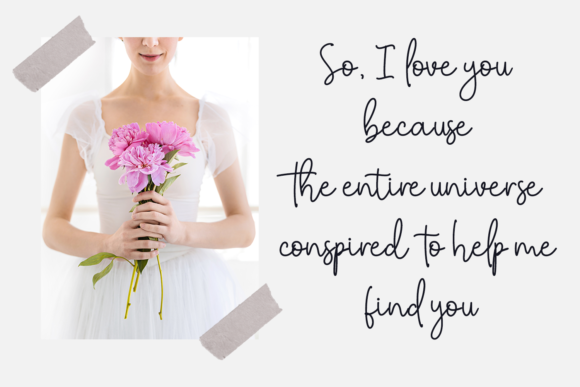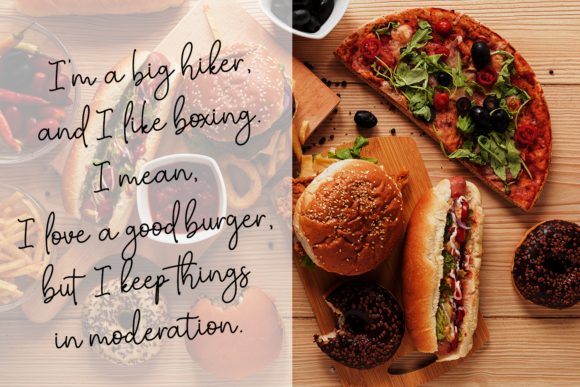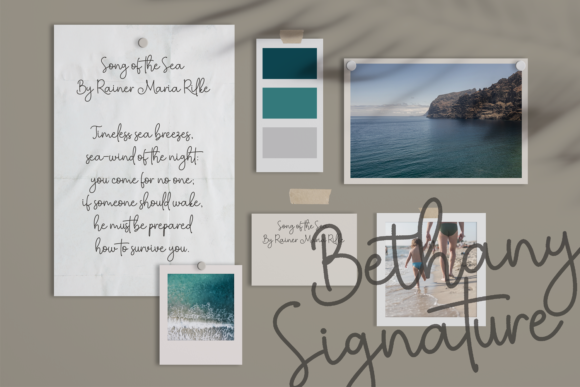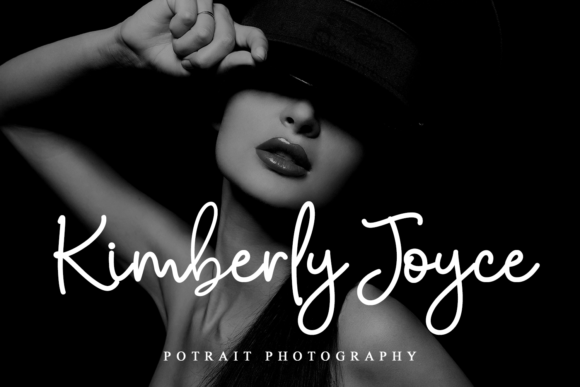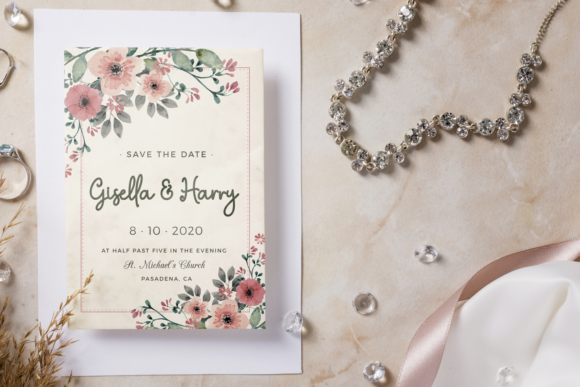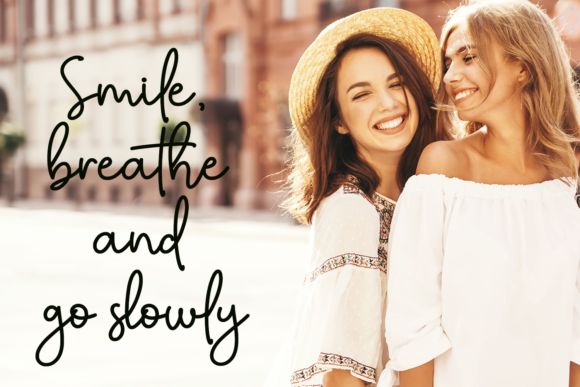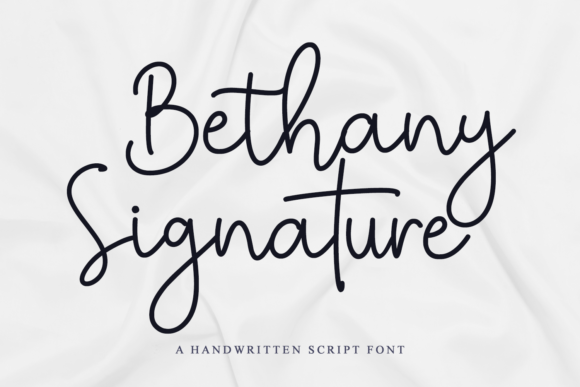
The Magic of Bethany Signature Font: A Designer’s Delight
Have you ever been in the middle of a design project, and suddenly, you’re stuck on finding the perfect font? I recall a particularly frustrating experience when a client requested a custom logo with a very specific, elegant feel. After hours of scouring font libraries, I stumbled upon Bethany Signature Font. It was love at first sight! 💫
Bethany Signature is a delicate, elegant, and flowing handwritten font that has become a staple in my design toolkit. Its beautiful, well-balanced characters make it an incredibly versatile choice, suitable for a wide range of designs. In this article, I’ll share my honest review, a practical guide on how to use it, and some valuable insights into this stunning font.
- 💫 Delicate and elegant handwritten style
- ✅ Well-balanced characters for a polished look
- 🎨 PUA encoded for easy access to glyphs and swashes
- 📈 Features a varying baseline, smooth lines, and stunning alternates
While Bethany Signature Font is an excellent choice, there are a few minor considerations to keep in mind:
- 🤔 May require some time to get accustomed to its unique flow and connections
- ⚠️ Not ideal for very large or very small font sizes, as some details might get lost
Exploring Alternatives: Similar Fonts for Different Moods
If you’re looking for something similar or want to experiment with different styles, consider these alternatives:
- Kaitlynn: A whimsical, handwritten font with a playful feel, perfect for children’s projects or informal branding.
- Alex Brush: An elegant, cursive script font ideal for sophisticated designs, such as luxury brands or wedding invitations.
- Pacifico: A beautiful, modern script font with a relaxed vibe, great for creative businesses or personal branding.
- Carolyna Pro: A stylish, elegant script font with a classic feel, suitable for high-end designs or formal events.
The Story Behind Bethany Signature Font: A Designer’s Inspiration
Rather than a traditional backstory, let’s imagine the inspiration behind Bethany Signature Font. Picture a designer, captivated by the fluidity of handwritten scripts, who aimed to create a font that embodies elegance and charm. With a keen eye for detail, they crafted each character to ensure a harmonious flow, making Bethany Signature a versatile and captivating font.
Q: What makes Bethany Signature Font stand out?
A: Its delicate, elegant style, well-balanced characters, and extensive OpenType features make it a standout choice for designers seeking a sophisticated yet charming font.
Q: Is Bethany Signature Font suitable for body text?
A: While it’s primarily designed for headings and creative projects, its readability makes it suitable for short body text passages. However, for lengthy content, a more straightforward font might be preferable.
Bethany Signature Font has undoubtedly become a cherished part of my design arsenal, and I’m confident it can do the same for you. Its elegance, versatility, and charm make it an excellent choice for a wide range of creative projects. Give it a try and see how it brings your designs to life! 🌟